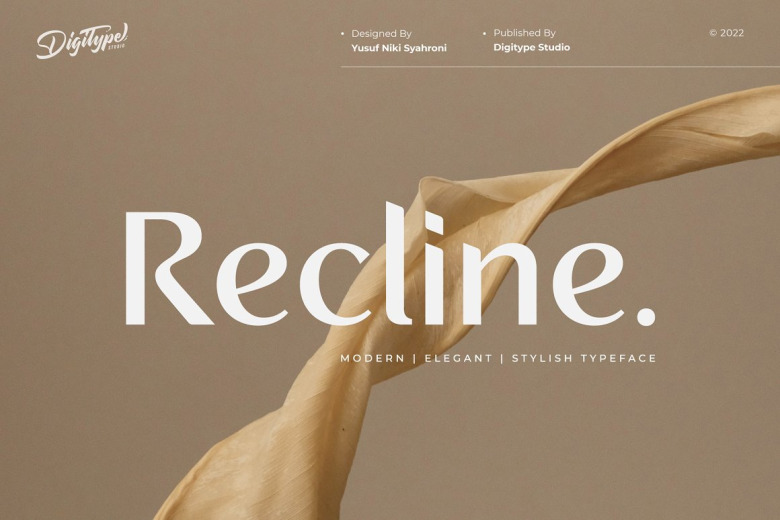
Recline Font
Recline Font is a fresh sans serif typeface with angled and straight cuts in ten weight variants, lending itself well to a diversity of designs. Its refined style produces clean lines for a variety of mediums.
Recline Sans Serif Font